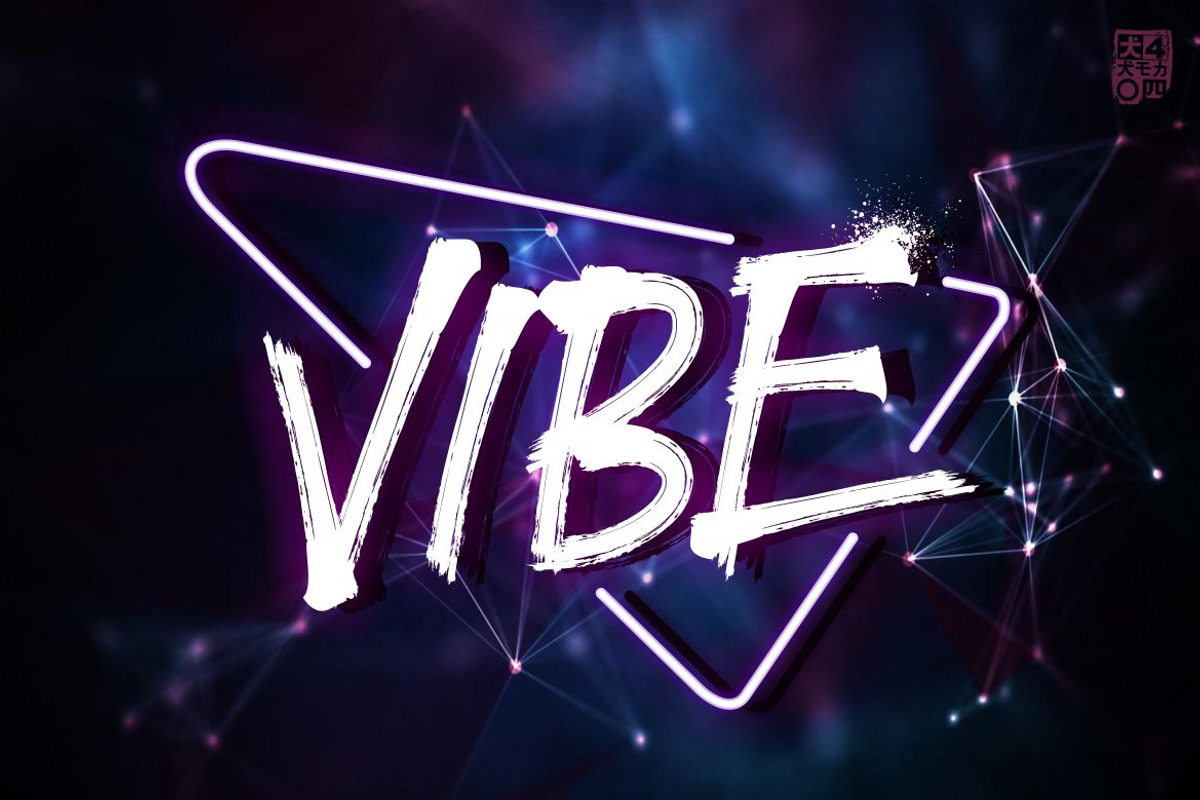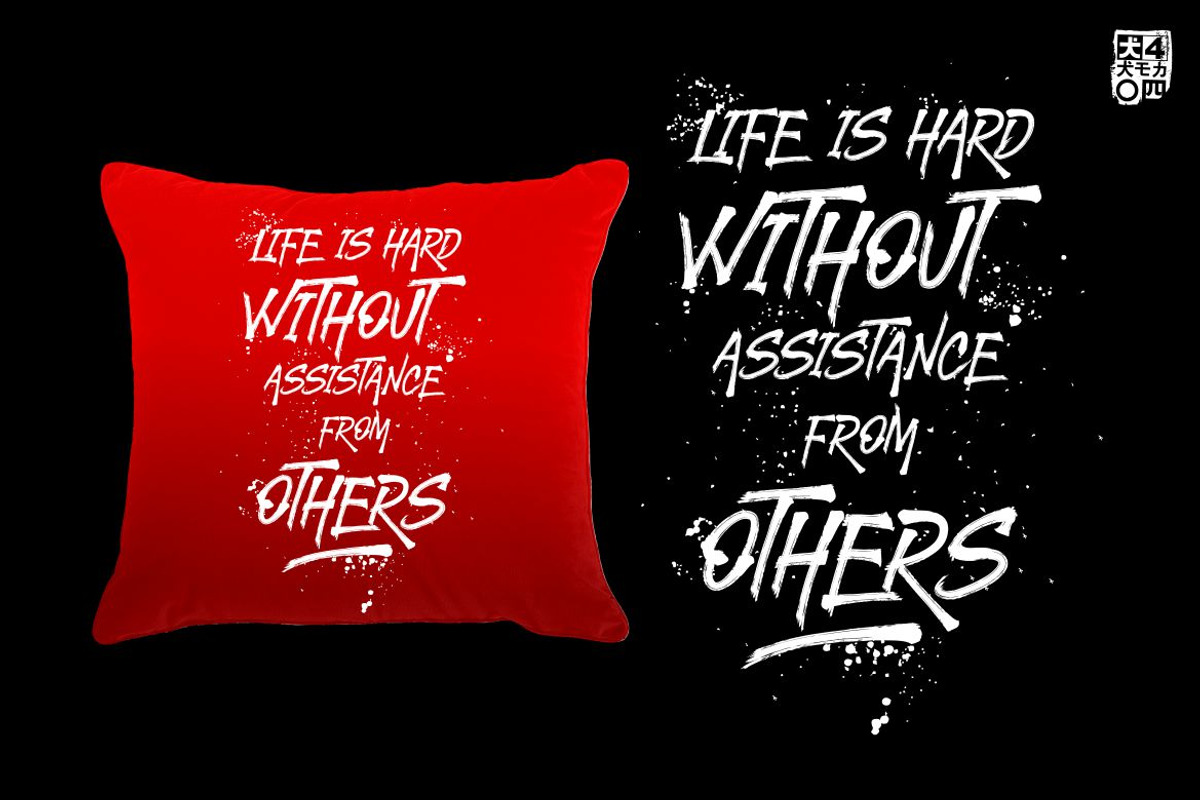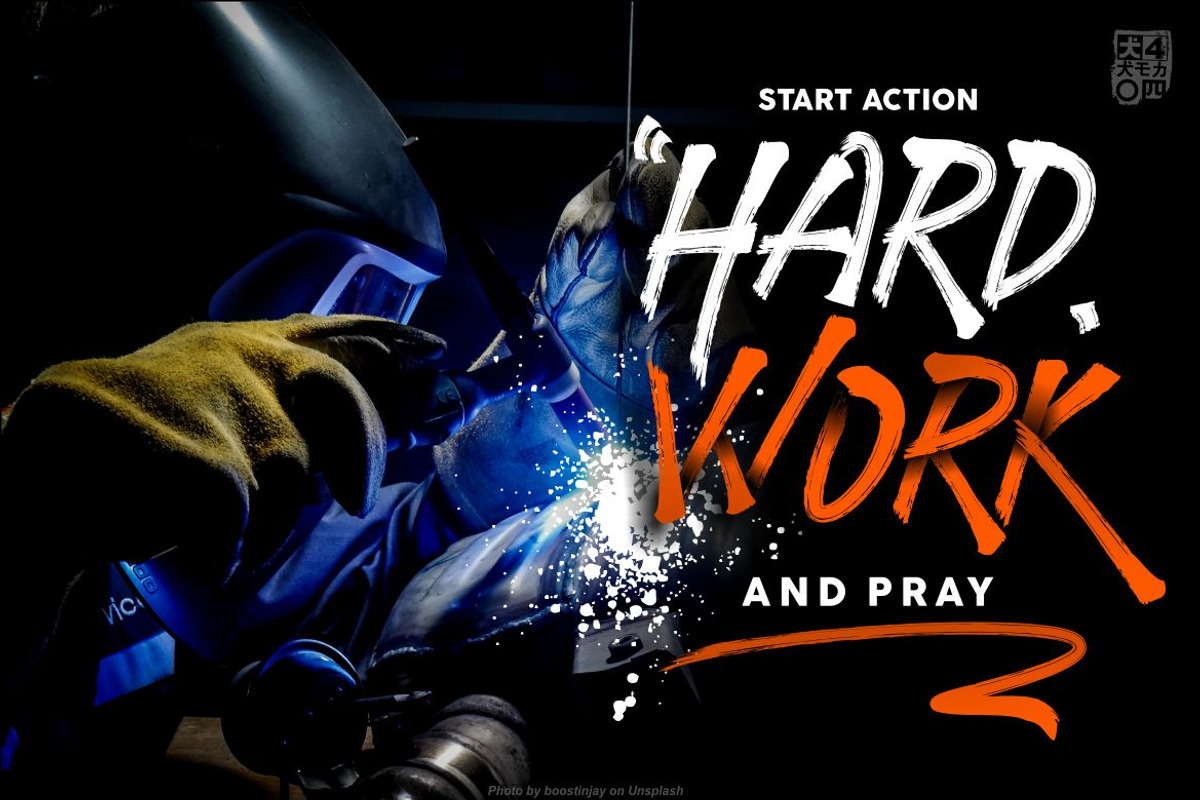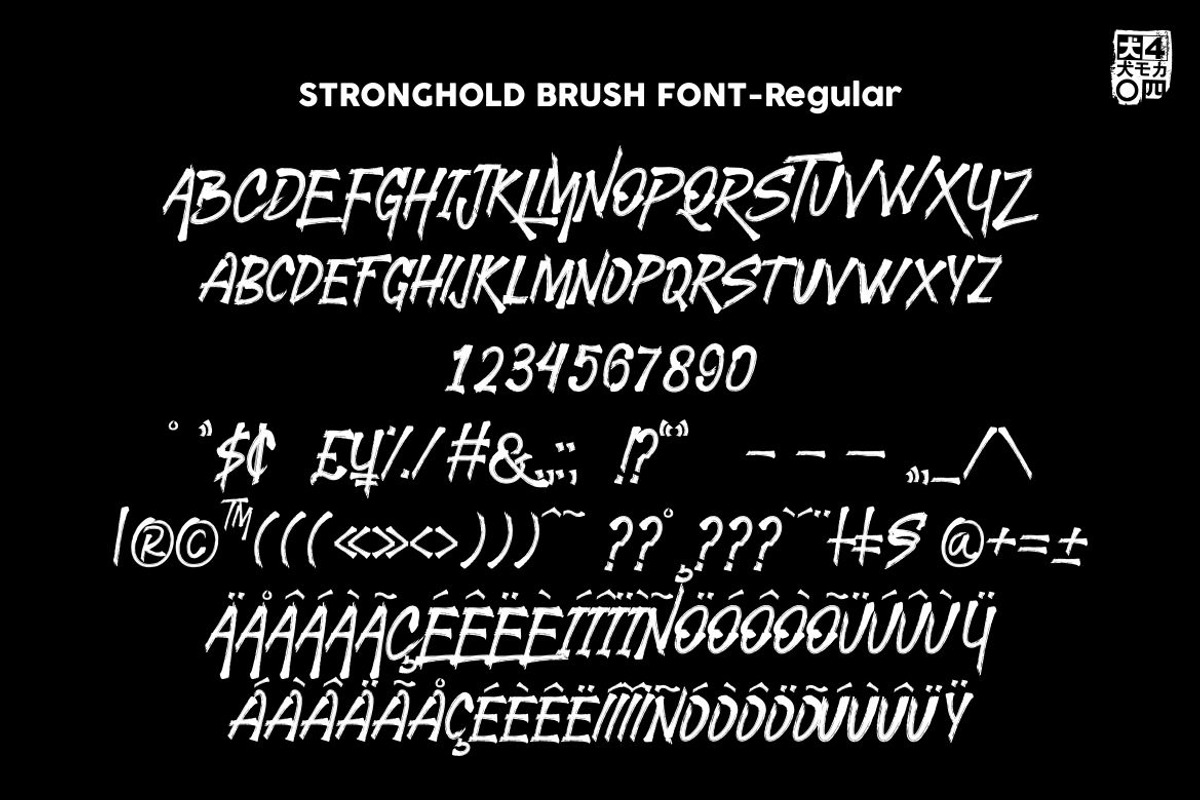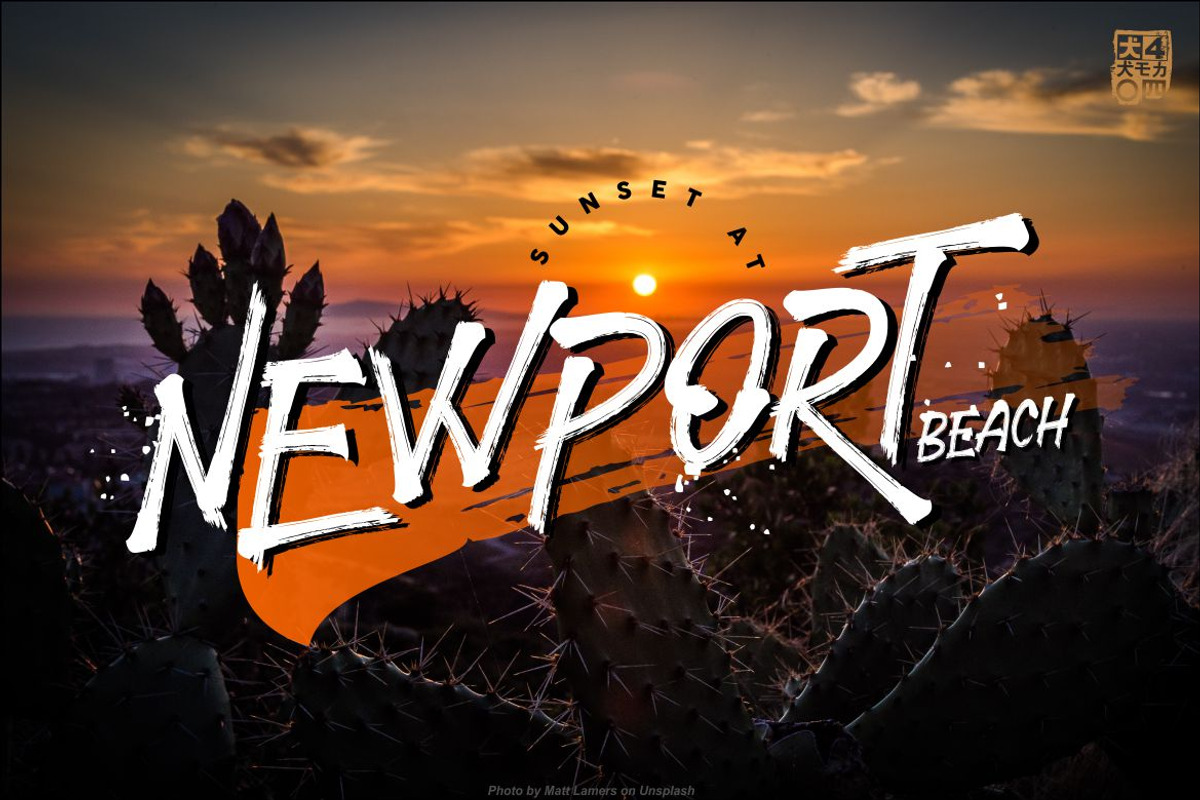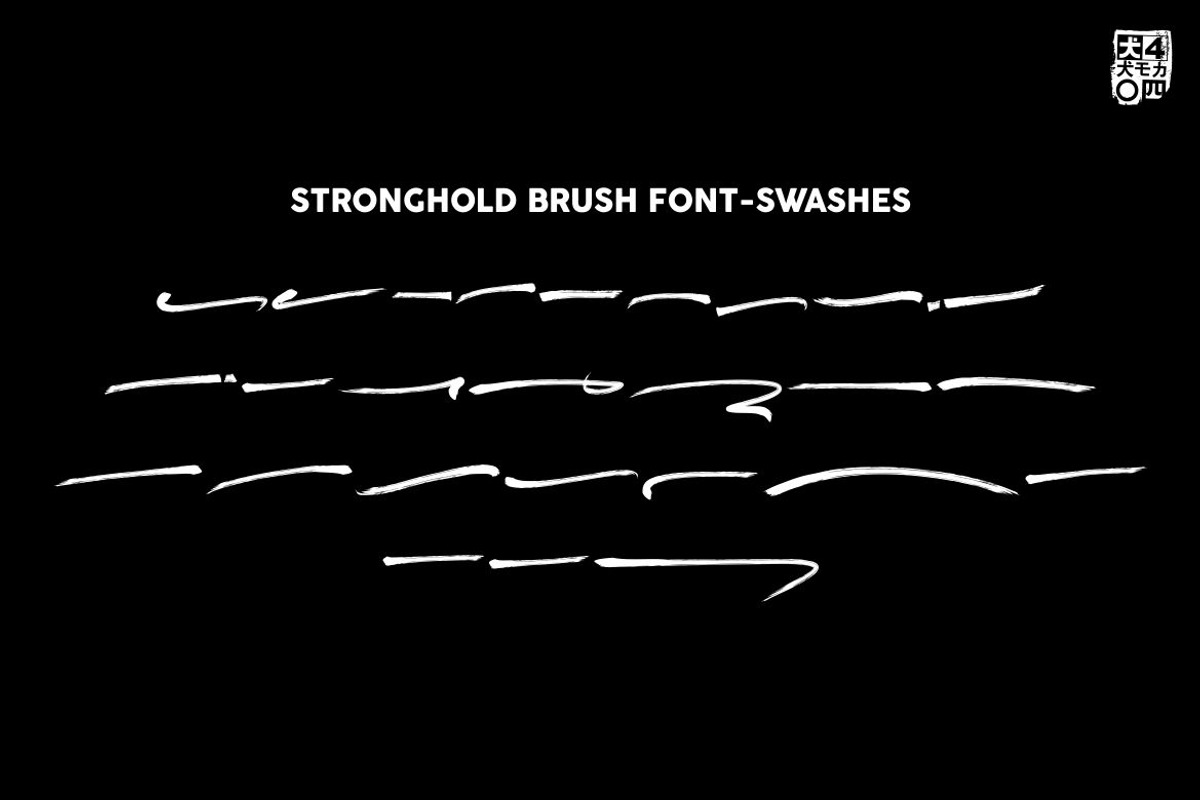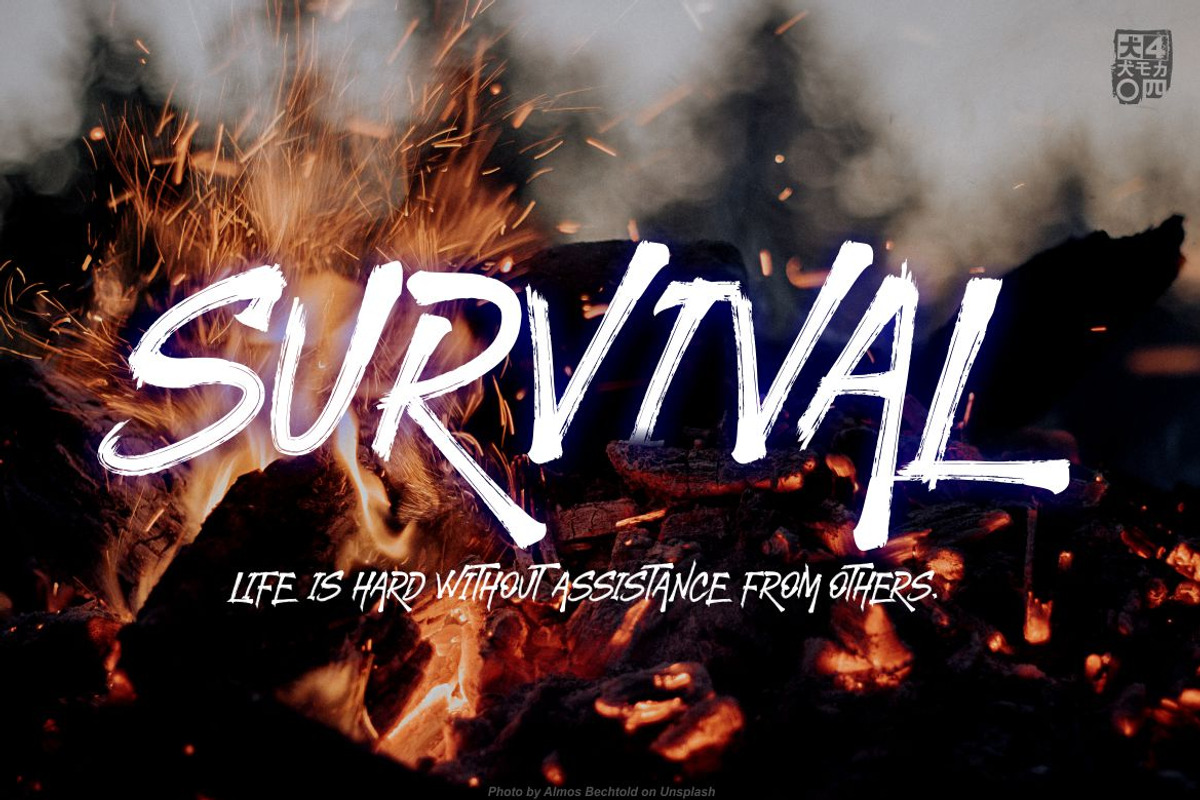
STRONGHOLD Brush font
STRONGHOLD BRUSH FONT, A handmade handwritten Brush typeface with unique glyphs and Powerfull. STRONGHOLD BRUSH FONT playfull will look so good on your poster, Blog, Website, tshirt and any other fun projects you are working on.
Multilingual Character
Punctuation Character
STRONGHOLD BRUSH FONT
STRONGHOLD BRUSH FONT SWASHES
Why STRONGHOLD Brush font is worth a look
STRONGHOLD Brush font by inumoccatype fits naturally into Branding, posters, packaging, typography.